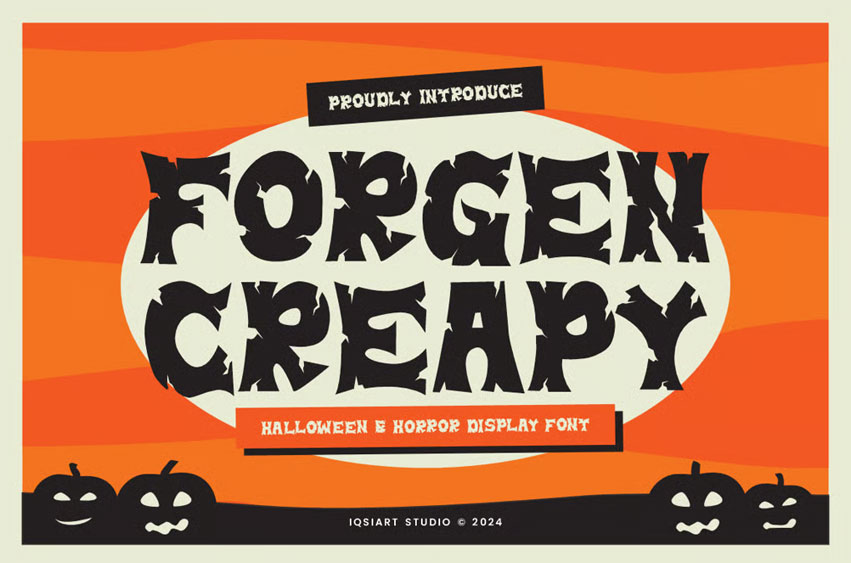
Forgen Creapy Font
Forgen Creapy Font is the best and authentic display font. This font can be used for your various needs. We provide various themes and font styles.